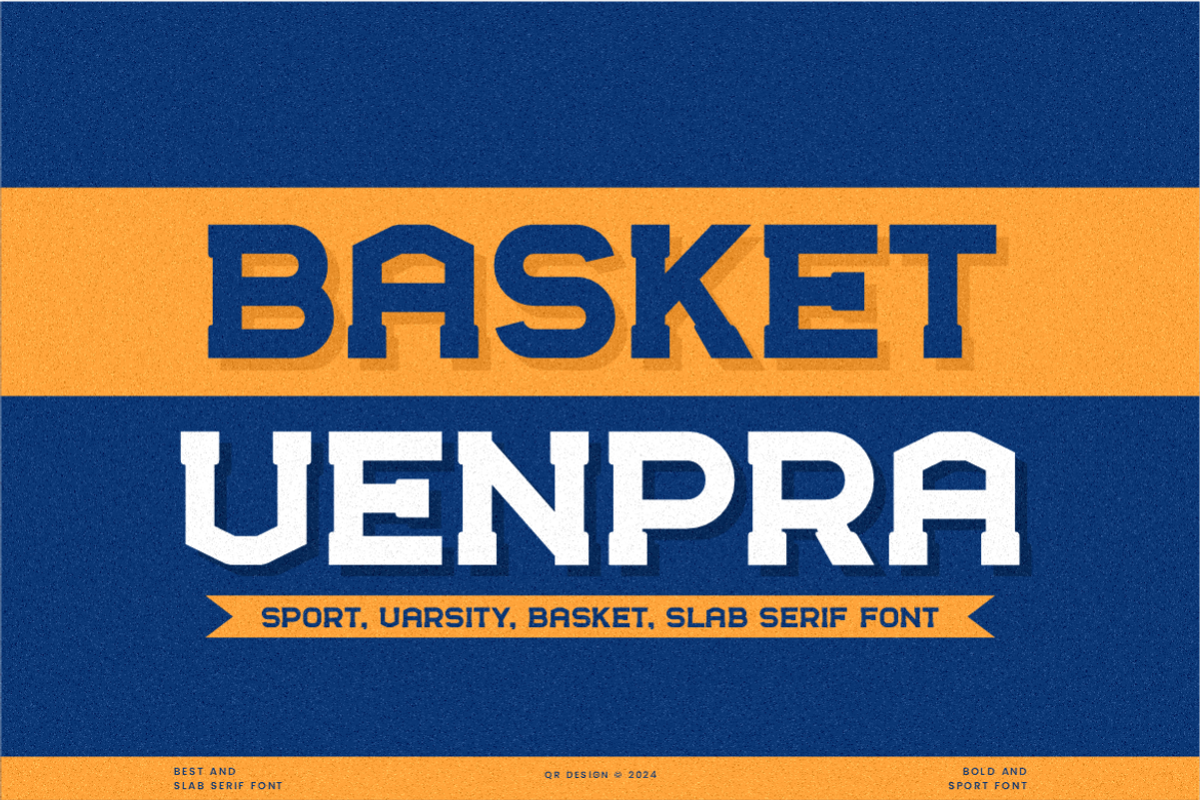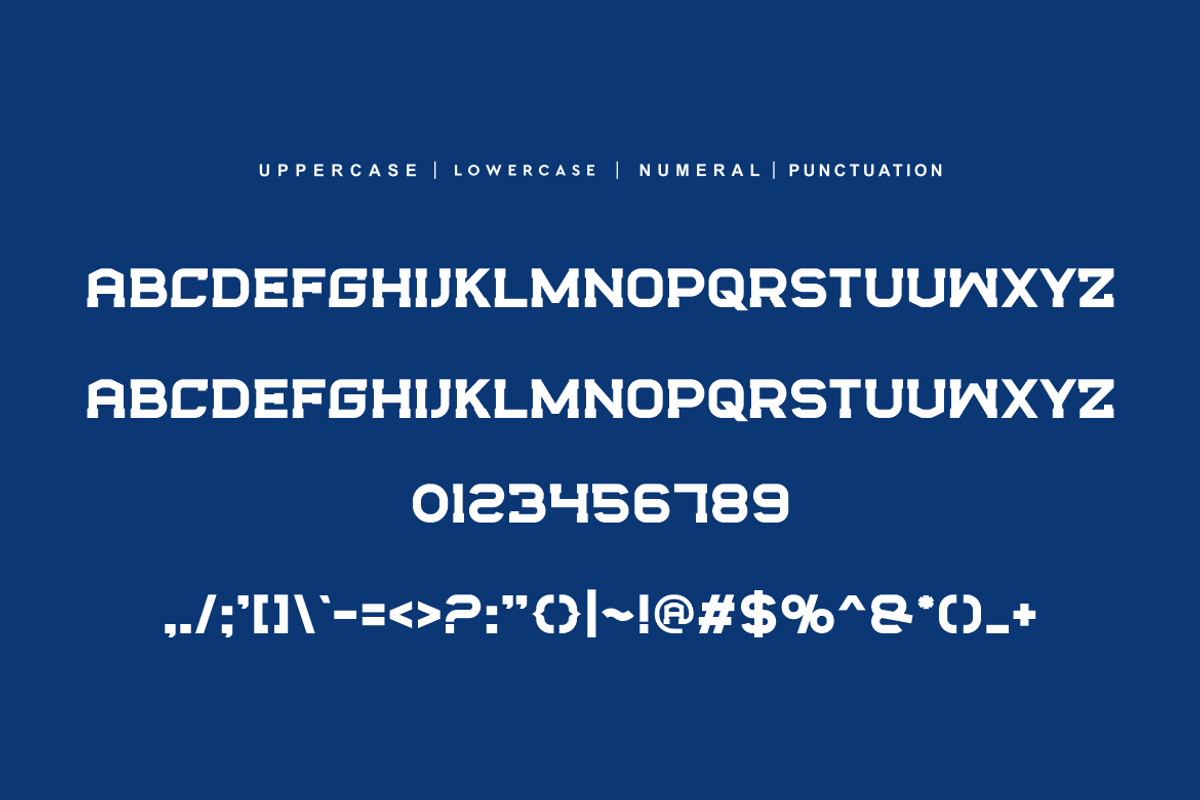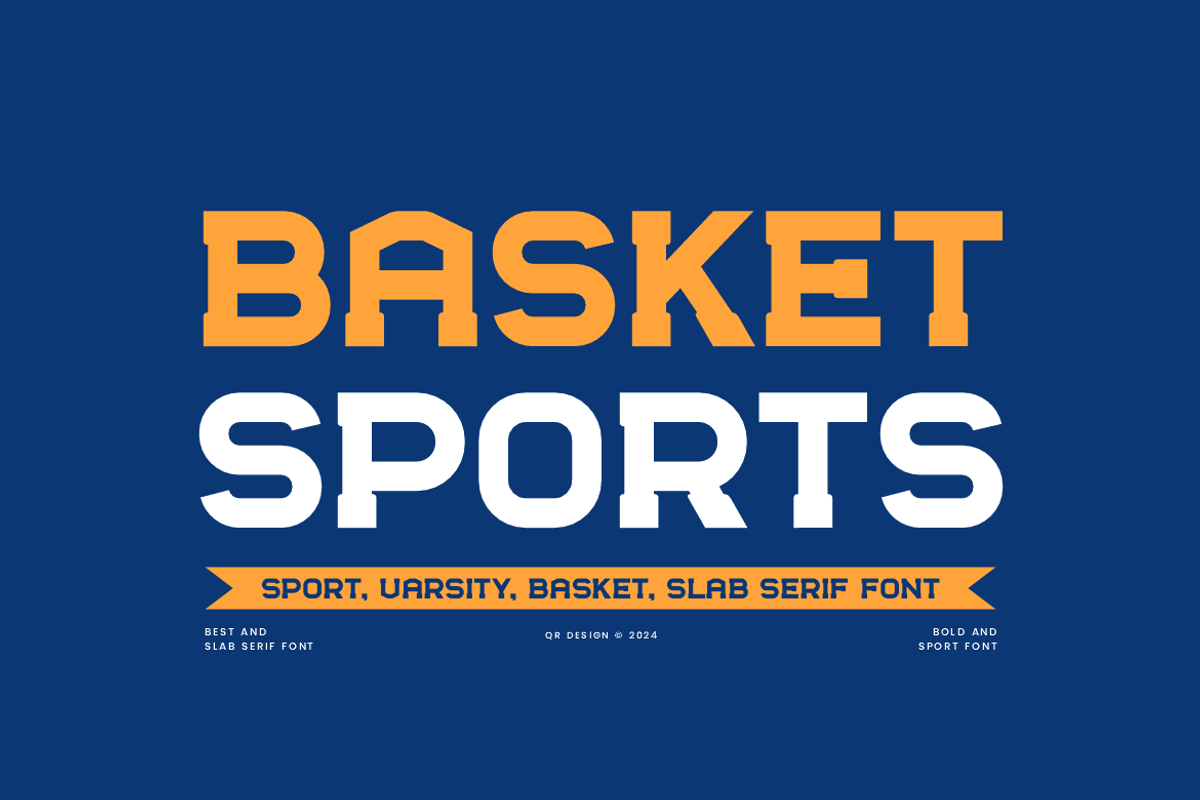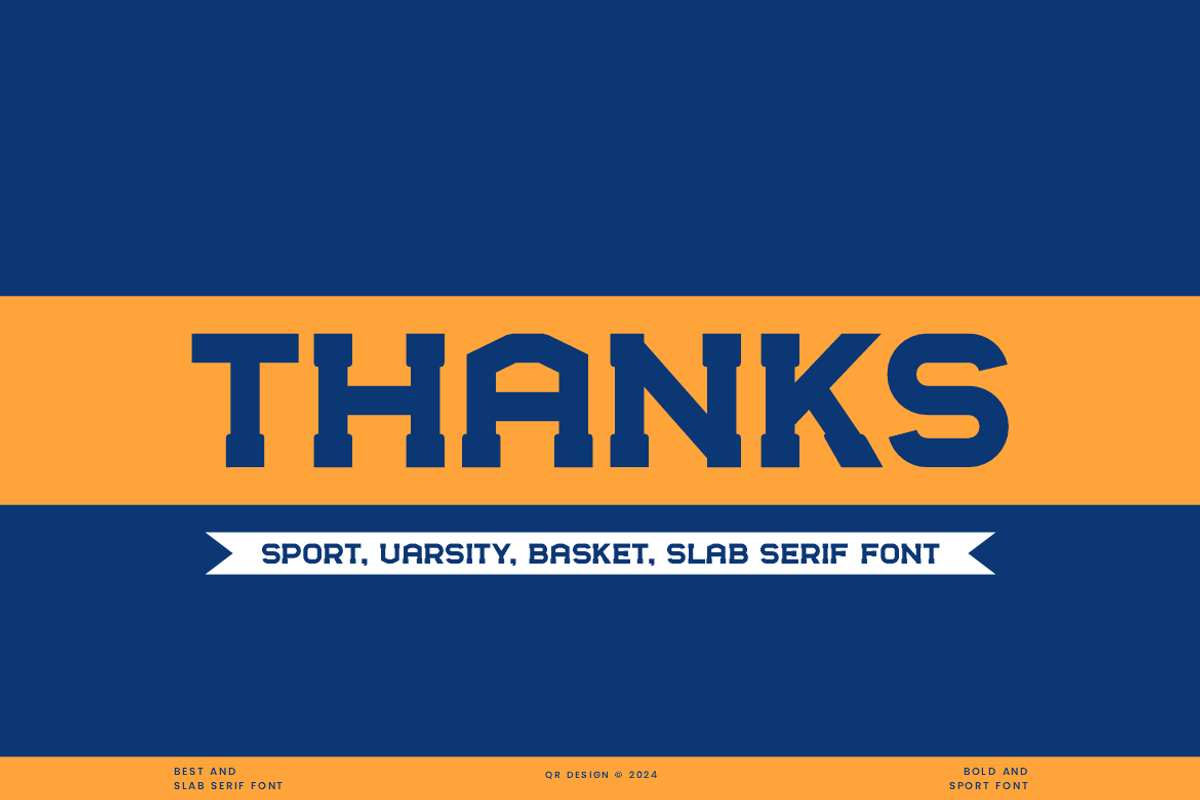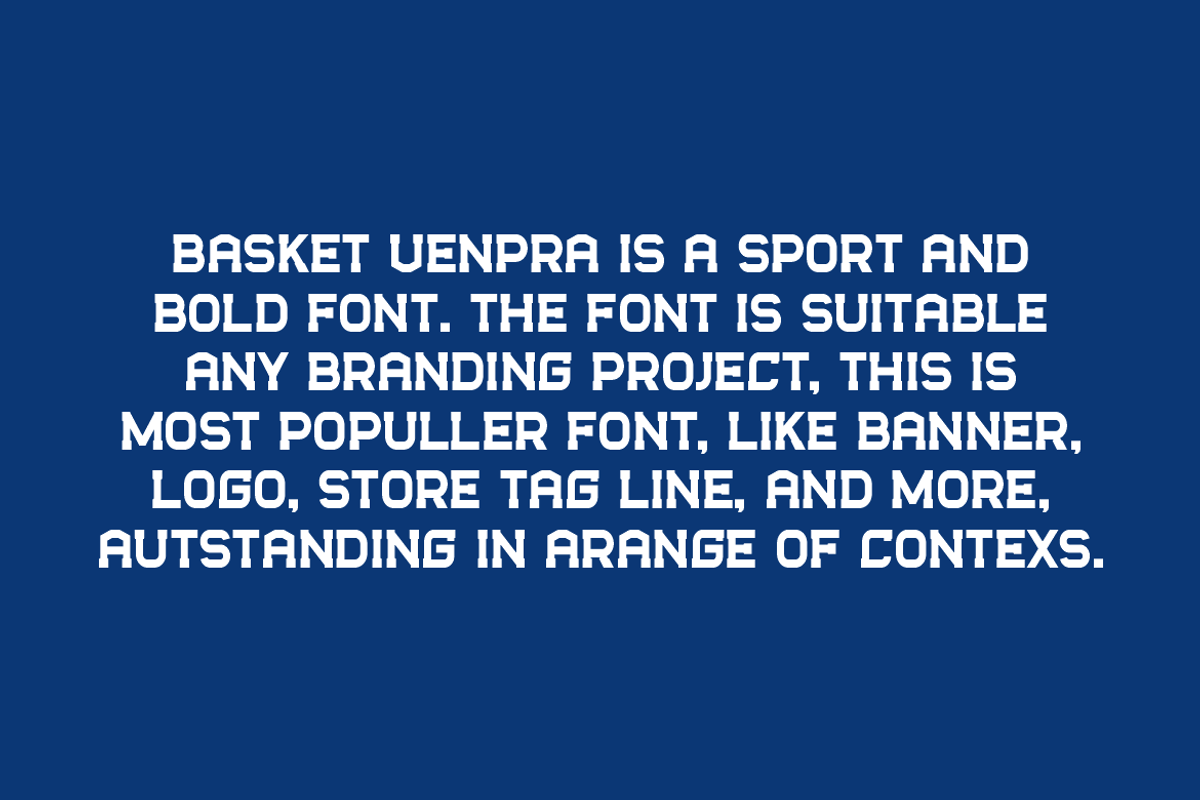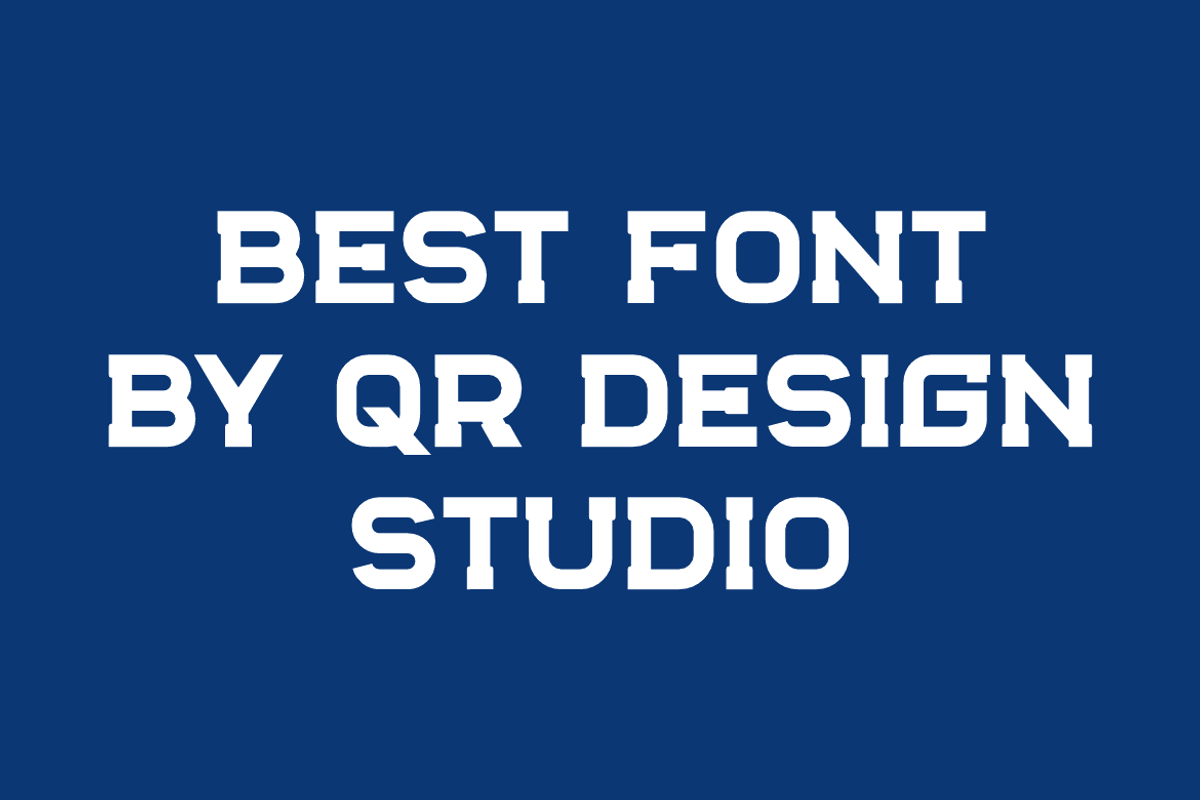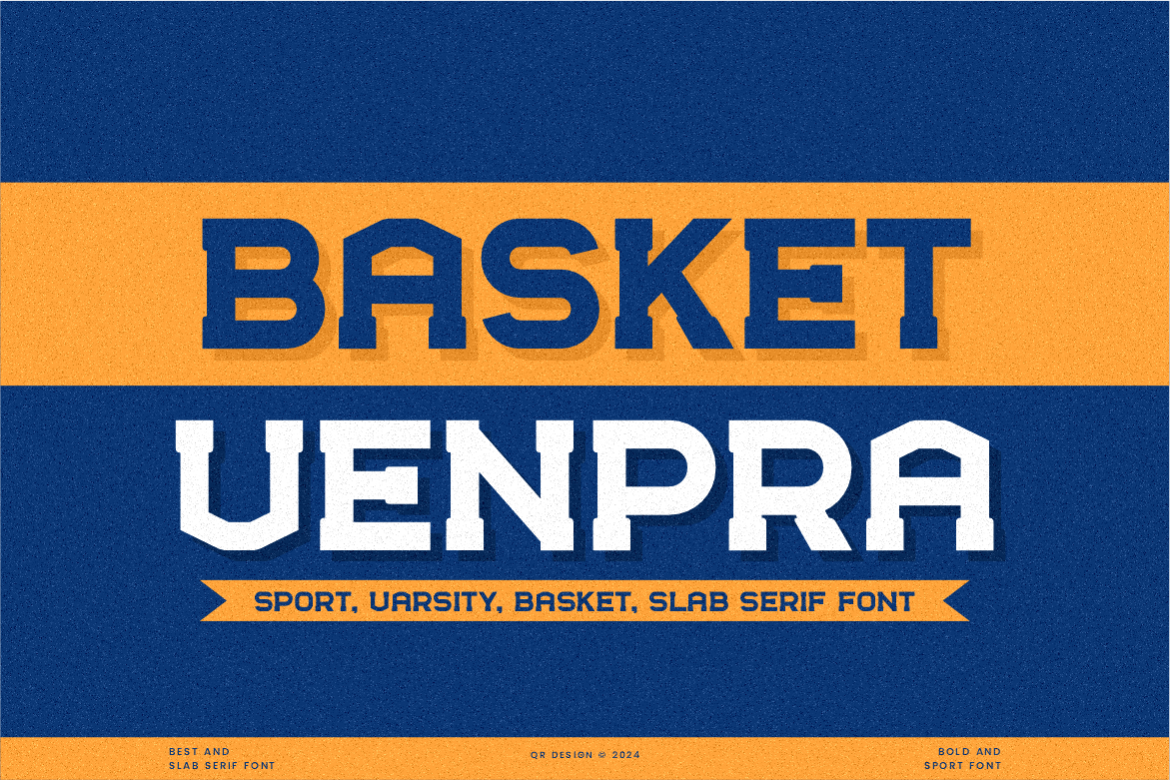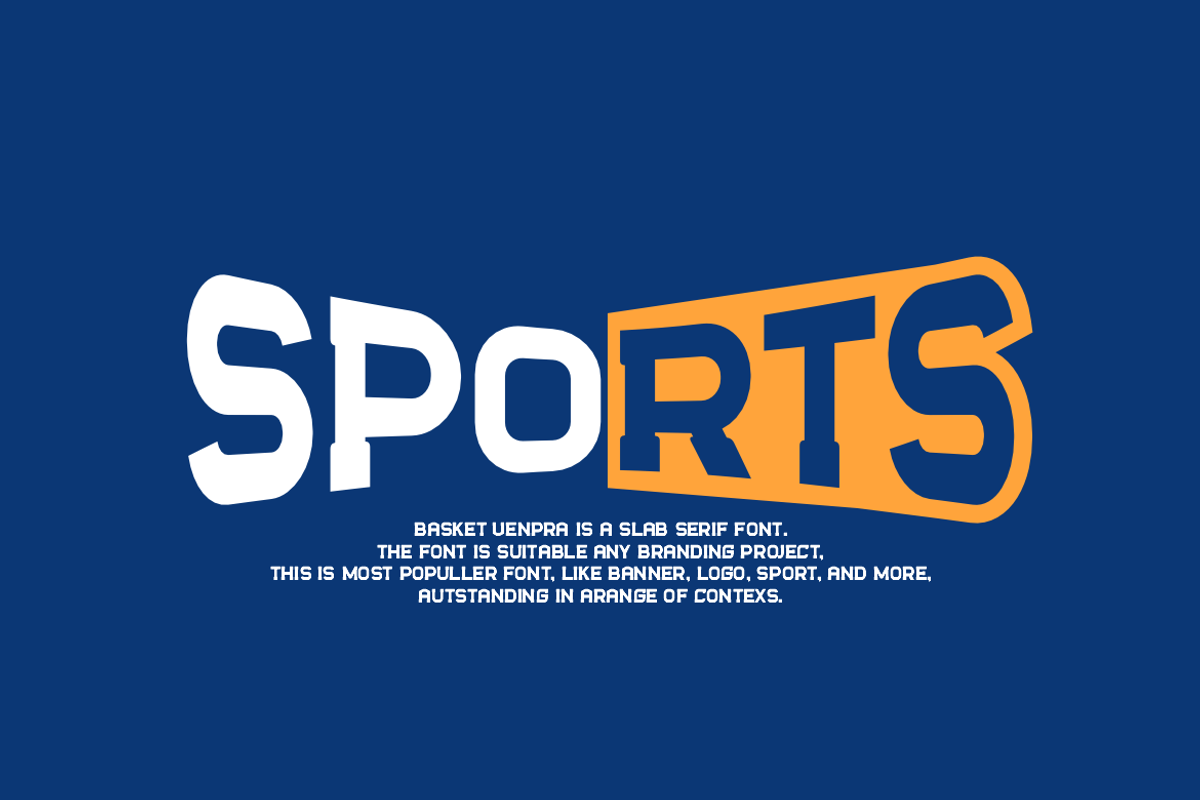
Basket Venpra - Sport Varsity Font
Basket Venpra Font is a slab serif and authentic display font. The font is suitable for any branding project like poster, logo, sport, and many more. Outstanding in a wide range of contexts.